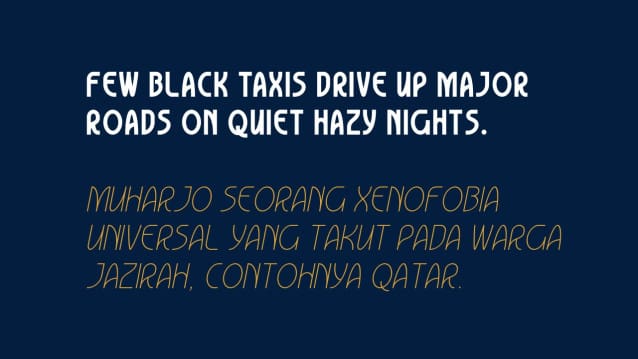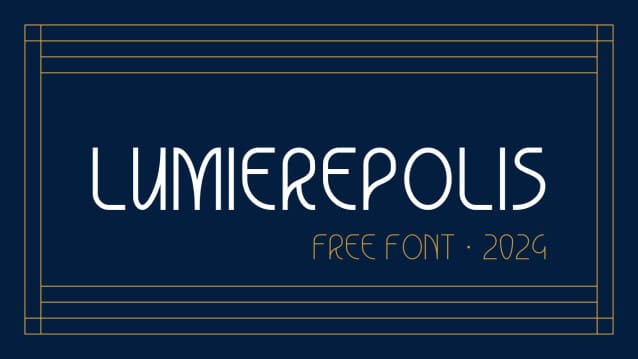
Lumierepolis Font
Lumierepolis Font a bold statement with our latest sans-serif font. With its clean lines and modern appeal, this font is sure to turn heads and leave a lasting impression. Perfect for headlines, logos, and any design that demands attention. It is both functional and stylish, making it a versatile choice for a wide range of design projects.